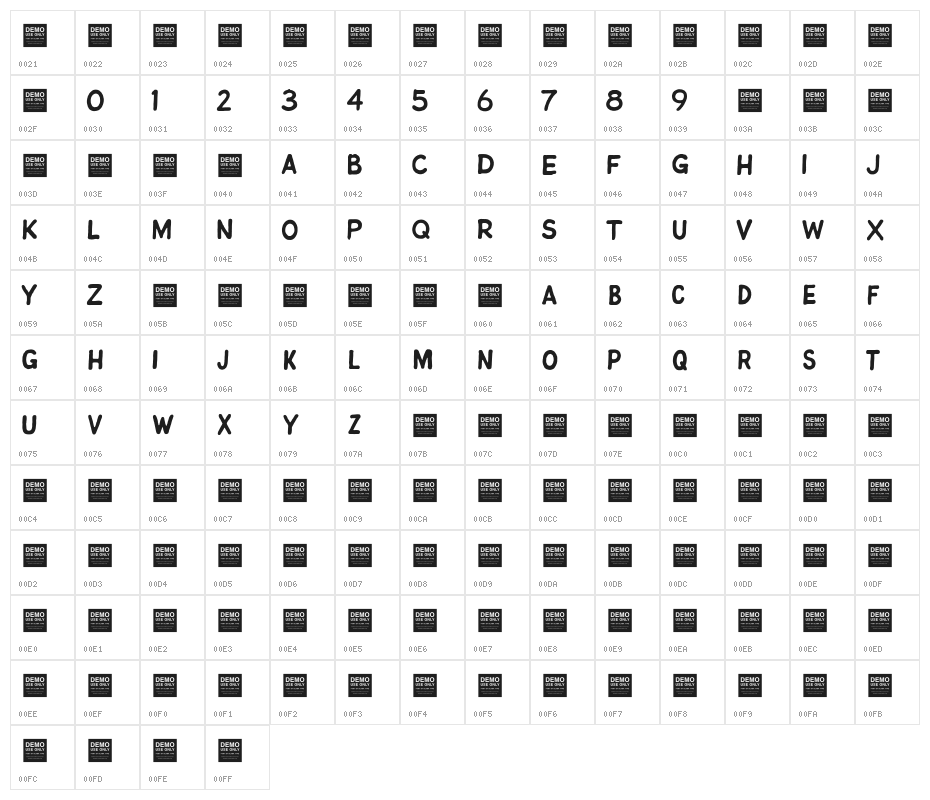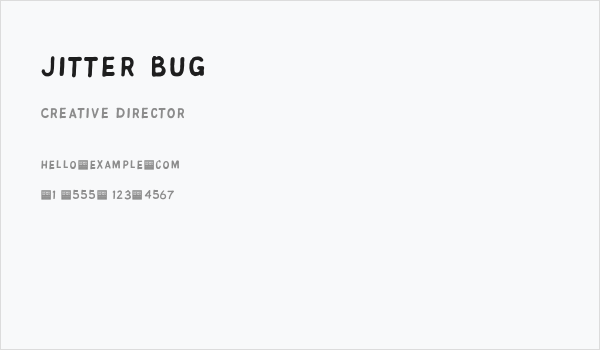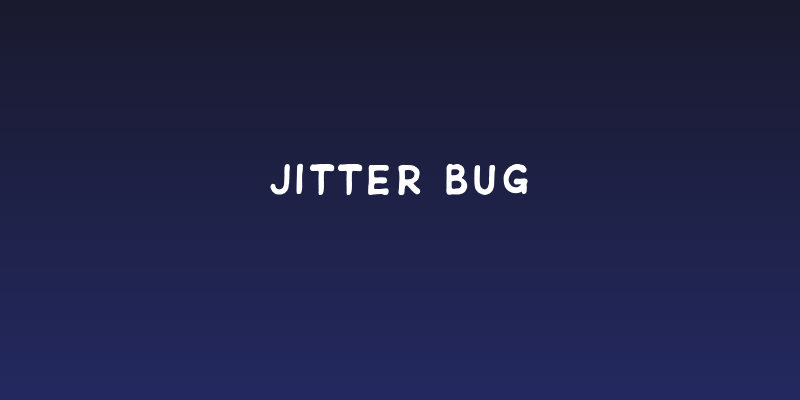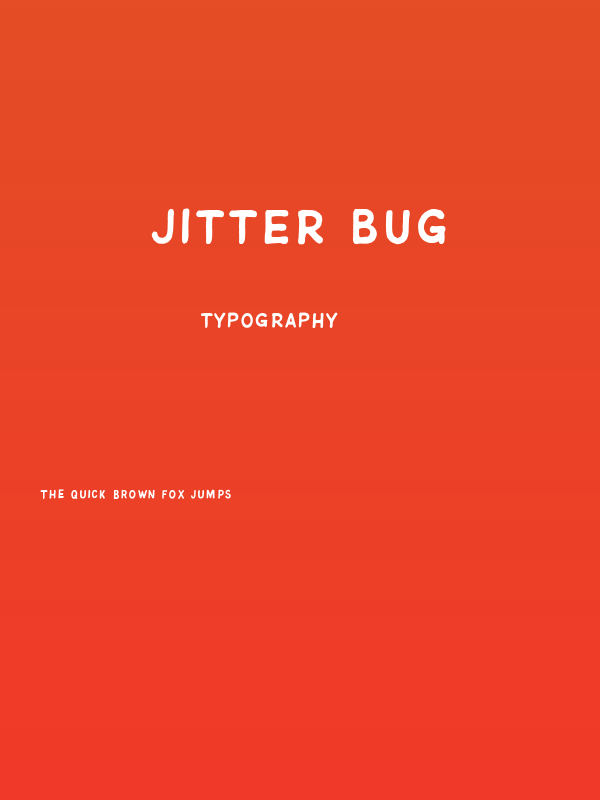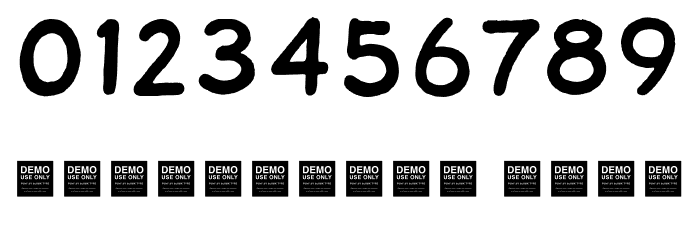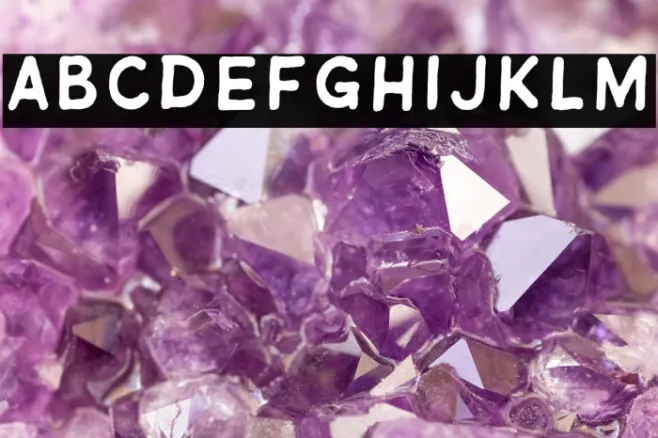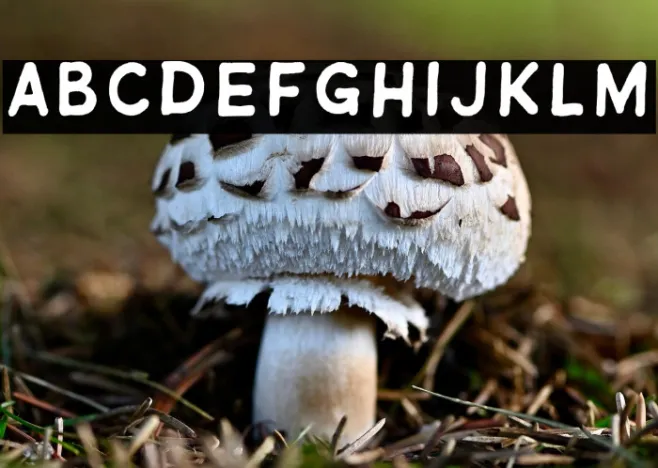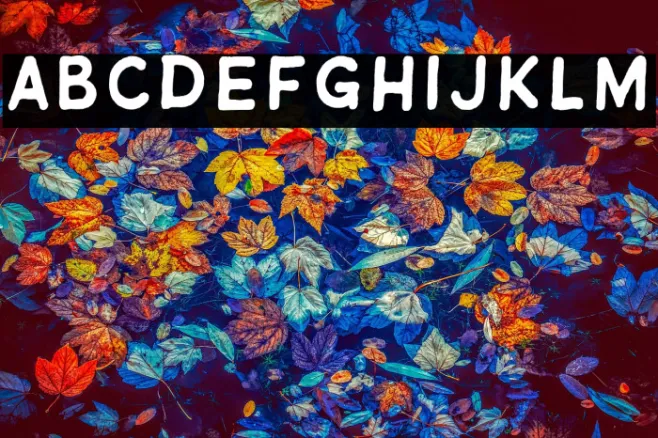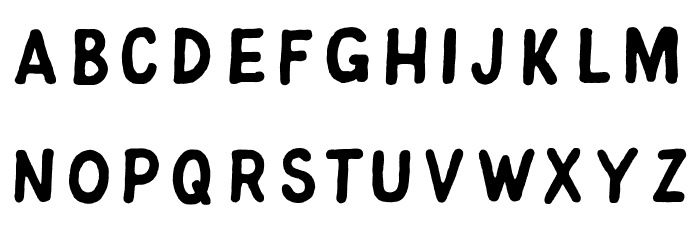
Jitter Bug Font
Jitter Bug Description
This playful and energetic font features bold, rounded characters with a slightly irregular, hand-drawn appearance. The strokes are thick and consistent, giving it a strong presence. The letters have a whimsical, almost bouncy quality, making them ideal for projects that require a fun and informal touch. The numbers and special characters maintain the same lively style, ensuring a cohesive look across all text elements. This font's unique charm makes it suitable for creative and artistic applications.